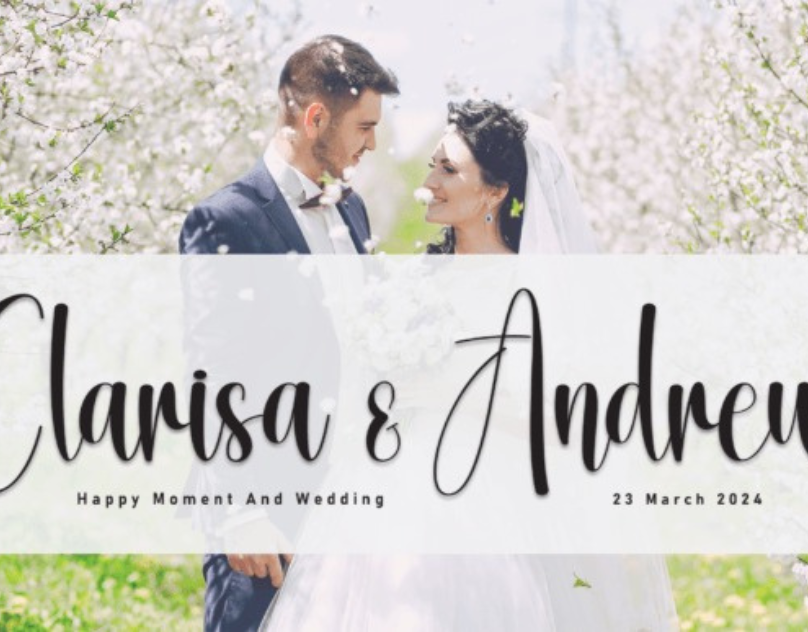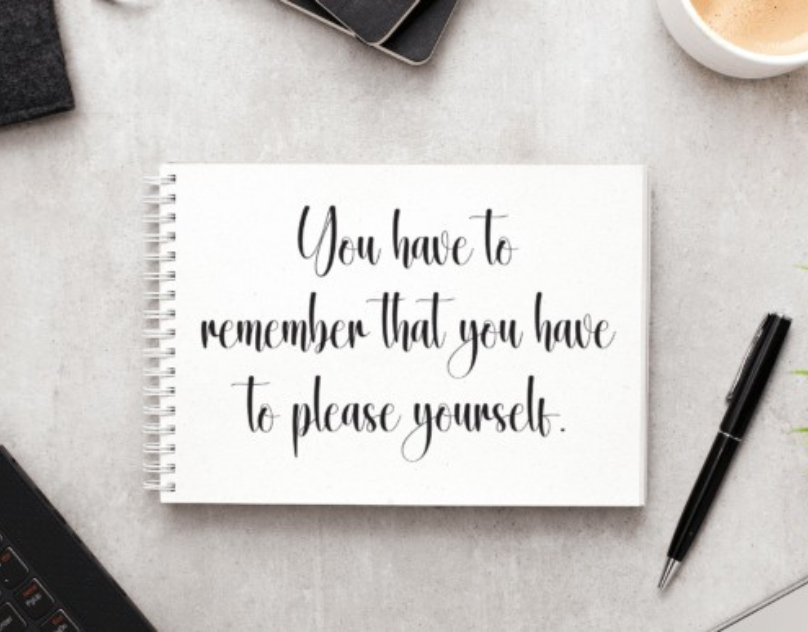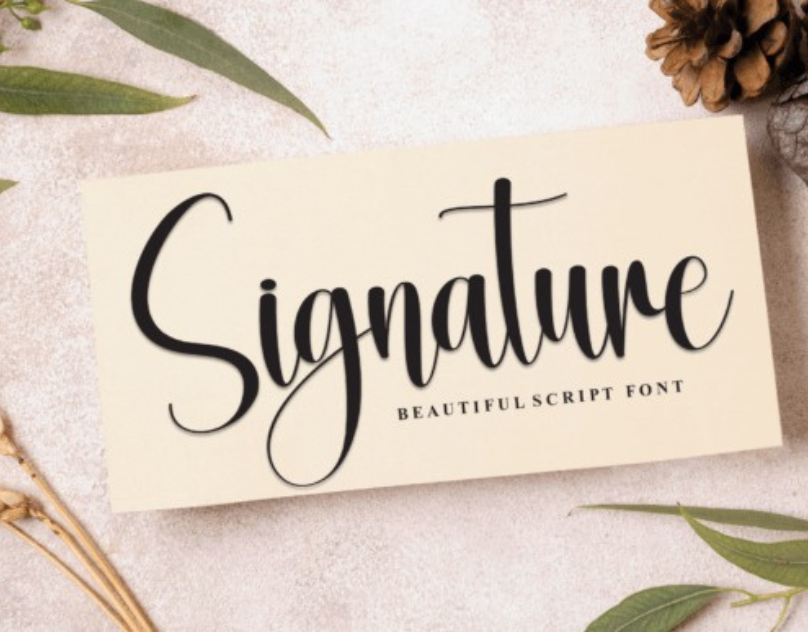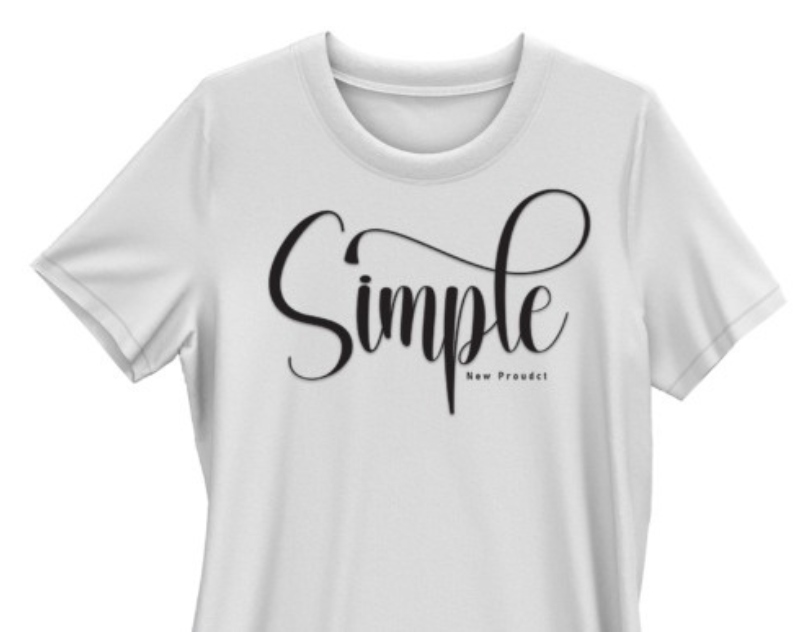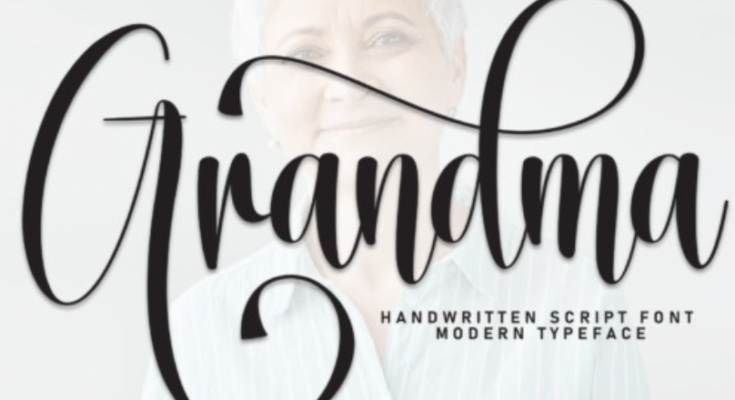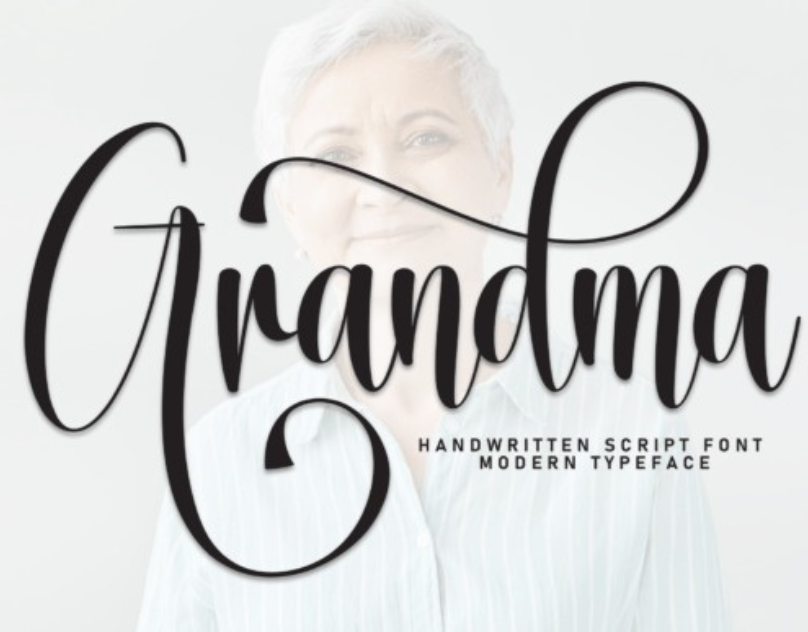
This Is Grandma Font – A Whimsical, Warm, and Handmade Typeface for Heartfelt Designs
Typography is more than just letters on a page—it’s a form of expression that communicates tone, personality, and emotion. Among the many typefaces loved by designers, This Is Grandma Font stands out as a charming, warm, and nostalgic handwritten font. With its imperfect strokes, playful curves, and friendly handwritten style, this font brings a unique personal touch to any design it enhances.
Whether you’re crafting greeting cards, branding a homemade product, designing social media graphics, or creating scrapbook elements, This Is Grandma Font instantly evokes feelings of warmth, comfort, and authenticity. As its name suggests, it feels like a handwritten note from a loving grandma—gentle, cozy, and full of heart.
What Is “This Is Grandma Font”?
“This Is Grandma” is a handwritten, script-style font designed to mimic natural handwriting. Its letters are slightly irregular, soft in shape, and crafted to resemble the warm, informal notes often written by an elderly loved one. The font captures a sense of nostalgia, simplicity, and genuine care.
Slightly wavy baselines that feel natural
Soft, rounded edges
Loose, fluid strokes
A playful yet readable handwriting style
This makes it ideal for designs that aim to look personal, sentimental, and handcrafted.
Why Designers Love This Is Grandma Font
The popularity of this font comes from its unique ability to connect emotionally with audiences. In the design world, fonts that convey genuine warmth are rare, which makes this one stand out.
Here are the primary reasons designers adore it:
1. It Feels Personal and Handwritten
Unlike clean, formal script fonts, This Is Grandma embraces imperfections. These imperfections add character and make designs feel handcrafted and authentic.
2. Perfect for Nostalgic and Sentimental Themes
Whether you’re designing for Mother’s Day, family albums, or memory journals, this font enhances the emotional impact of your work.
3. Soft, Playful Style
The font carries a lighthearted charm. It’s friendly without being childish, making it suitable for a wide range of audiences.
4. Easy to Read
Even with its whimsical style, the letters remain clear and legible, which is essential for both print and digital projects.
5. Versatile for Many Projects
From branding to personal crafts, this font fits beautifully into countless design categories.
Where You Can Use This Is Grandma Font
Its warm, playful nature makes this font incredibly flexible. Here are some ideal uses:
1. Greeting Cards & Invitations
Perfect for:
-
Mother’s Day cards
-
Holiday messages
-
Birthday invitations
-
Thank-you notes
The handwritten feel makes every message look heartfelt.
2. Homemade & Craft Branding
If you’re branding products like:
-
Handmade cookies
-
Jam jars
-
Candles
-
Crochet projects
-
Small-batch home goods
This font adds a cozy, home-crafted touch that customers love.
3. Scrapbooks & Journals
Designers use it for:
-
Memory pages
-
Diary titles
-
Captioning photos
-
Decorative stickers
The sentimental tone fits perfectly with personal storytelling.
4. Social Media Graphics
Especially for:
-
Parenting pages
-
Lifestyle influencers
-
DIY creators
-
Inspirational quotes
Its friendliness makes it great for relatable content.
5. Labels, Tags, and Packaging
From product labels to gift tags, this font makes every item look special and personal.
6. Classroom Materials
Teachers love it for:
-
Bulletin boards
-
Flashcards
-
Worksheets
-
Posters
It looks fun, friendly, and approachable for kids.
Features of This Is Grandma Font
High-quality versions of this font often include:
A Full Character Set
Uppercase, lowercase, numbers, and punctuation.
Smooth Brush Texture
Designed to resemble handwritten ink or marker strokes.
Multi-Language Support
Most versions support standard Latin characters for multiple languages.
Clean Vector Lines
Ensures crisp display whether used for print or digital media.
Perfectly Spaced Letters
Although irregular in style, the designer ensures balanced spacing for comfortable reading.
Tips for Using This Is Grandma Font in Your Designs
To get the best results, consider these design tips:
1. Pair with Soft Colors
Warm tones like:
-
Cream
-
Pastel pink
-
Lavender
-
Mint green
-
Light brown
enhance its cozy feel.
2. Combine with Illustrations
Doodles like hearts, flowers, leaves, or stars complement the handwritten style.
3. Use for Headings or Short Quotes
It shines most when used in larger text.
4. Pair with a Clean Sans-Serif Font
For body text, pair it with fonts like:
-
Montserrat
-
Open Sans
-
Lato
This balances playful handwritten text with readable paragraphs.
5. Leave Extra Spacing
Because handwritten fonts have personality, giving them room improves readability.
Why “This Is Grandma Font” Works So Well Emotionally
Among thousands of typefaces available today, fonts that evoke genuine emotion are rare. This font stands out because:
-
It feels personal.
-
It looks like it was written with love.
-
It reminds people of family, home, and memories.
-
It adds warmth to even simple designs.
-
It helps brands feel human and relatable.
For creators aiming for designs that touch the heart, this font is a perfect choice.
Final Thoughts
This Is Grandma Font is more than just a typeface—it’s a warm embrace in visual form. Its playful strokes, soft curves, and heartfelt personality make it ideal for any project that requires sincerity, nostalgia, or a handcrafted touch. Whether you’re creating family-themed graphics, branding small shops, designing cards, or crafting scrapbook elements, this font adds life, emotion, and charm.
Its versatility, readability, and emotional resonance make it a valuable addition to any designer’s font collection. If you want your designs to feel personal, inviting, and full of love, This Is Grandma Font is the perfect choice.